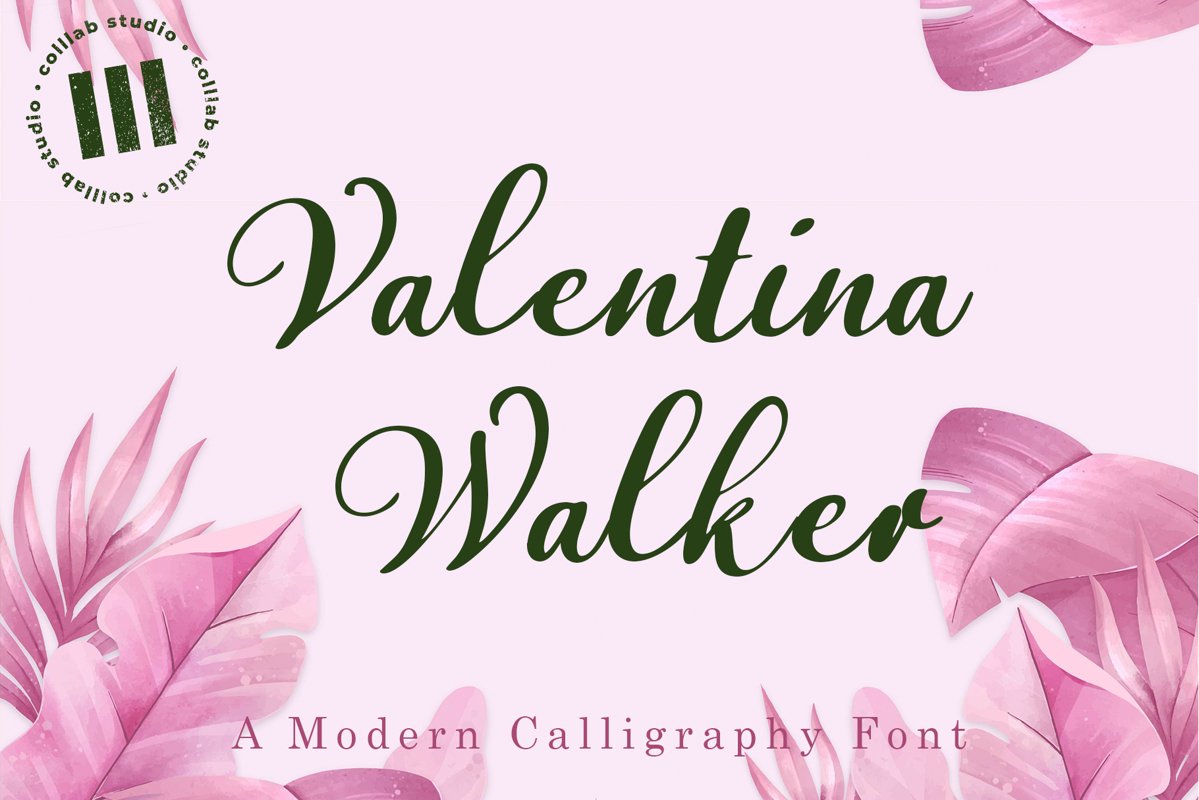
Valentina Walker - A Modern Calligraphy Font
Valentina Walker
Valentina Walker is a delicate, elegant and flowing handwritten font. It has beautiful and well balanced characters and as a result, it matches a wide pool of designs. Add it to your most creative ideas and notice how it makes them come alive!